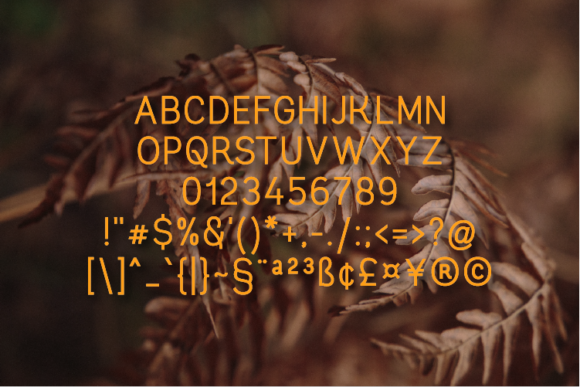
Introduction to Hurone Font
As you sit at your desk, staring at a blank canvas, the cursor blinks impatiently, waiting for your next creative stroke. Suddenly, an idea strikes, and the words begin to flow. But have you ever felt like something’s missing – a font that perfectly captures the essence of your vision? That’s where the Hurone Font comes in, a stunning sans serif font designed to elevate your creative project to new heights.
With its well-balanced weight distribution and modern feel, the Hurone Font is the perfect design resource for any project. Whether you’re working on a logo, brochure, or website, this font is sure to impress. Its carefully adjusted alternates and ligatures add a level of sophistication that’s hard to find in other fonts.
Key Features of Hurone Font
- High-quality design resource for creative projects, offering a unique and elegant aesthetic.
- Supports transparent background, allowing for seamless integration with various design elements.
- Size: 20,000 glyphs, providing an extensive range of characters and symbols for diverse design needs.
- Resolution: Optimized for high-resolution displays, ensuring crisp and clear typography even at large sizes.
- Perfect for designers seeking a sophisticated and modern font for their next creative project.
Honest Review: Hurone Font
What works well: ✨ The Hurone Font is highly legible, making it perfect for body text in creative projects. Its clean lines and minimalist aesthetic also make it ideal for use in headers and titles. The font is also incredibly versatile, suitable for a wide range of design applications, from branding and marketing materials to editorial content.
- Transparent background options
- Wide range of design applications
What doesn’t work well: ⚠️ While the Hurone Font is a great addition to any designer’s toolkit, it may not be the best choice for projects that require a more formal or traditional tone. The font’s modern aesthetic may not be suitable for all design contexts.
Overall impression: I’m thoroughly impressed with the Hurone Font. Its high-quality design and versatility make it an excellent resource for designers working on creative projects. While it may not be suitable for all design applications, it’s a great addition to any designer’s toolkit.
Designing with Hurone Font
The Hurone Font is commonly used in graphic design, digital art, and creative writing. It’s a popular choice for designers who want a high-quality font with a transparent background.